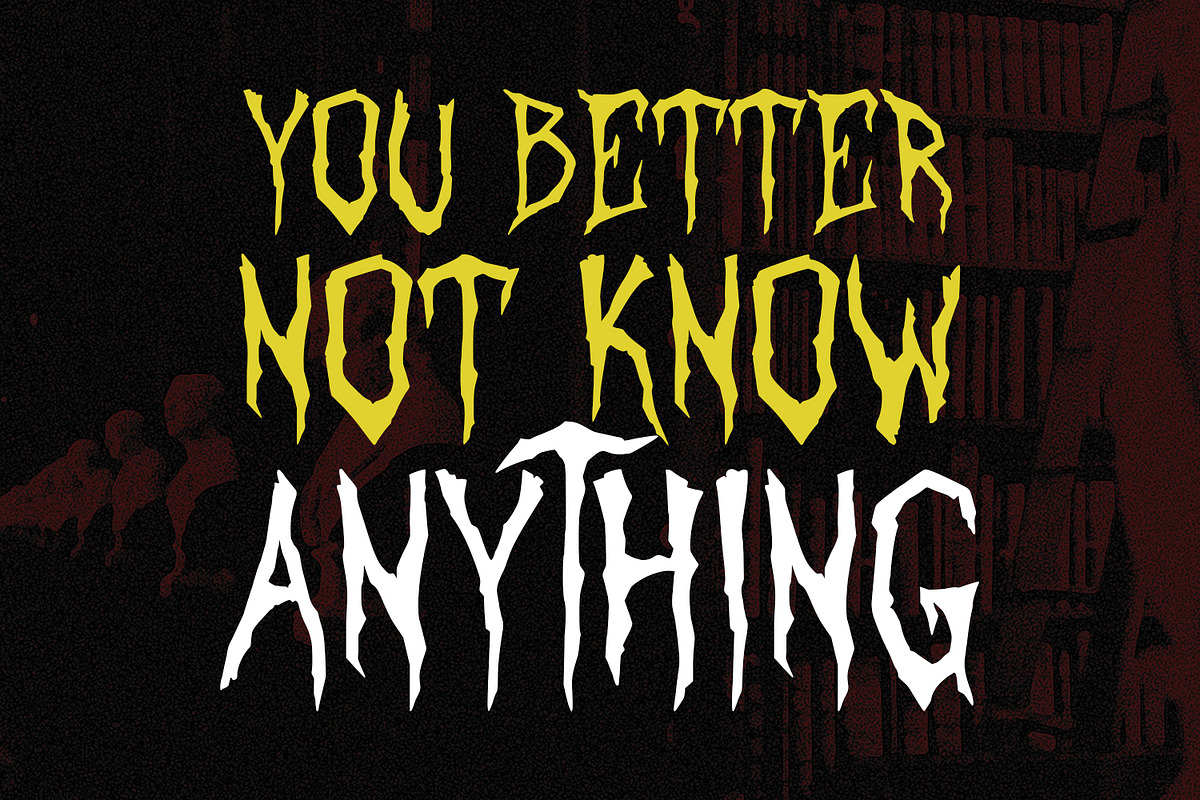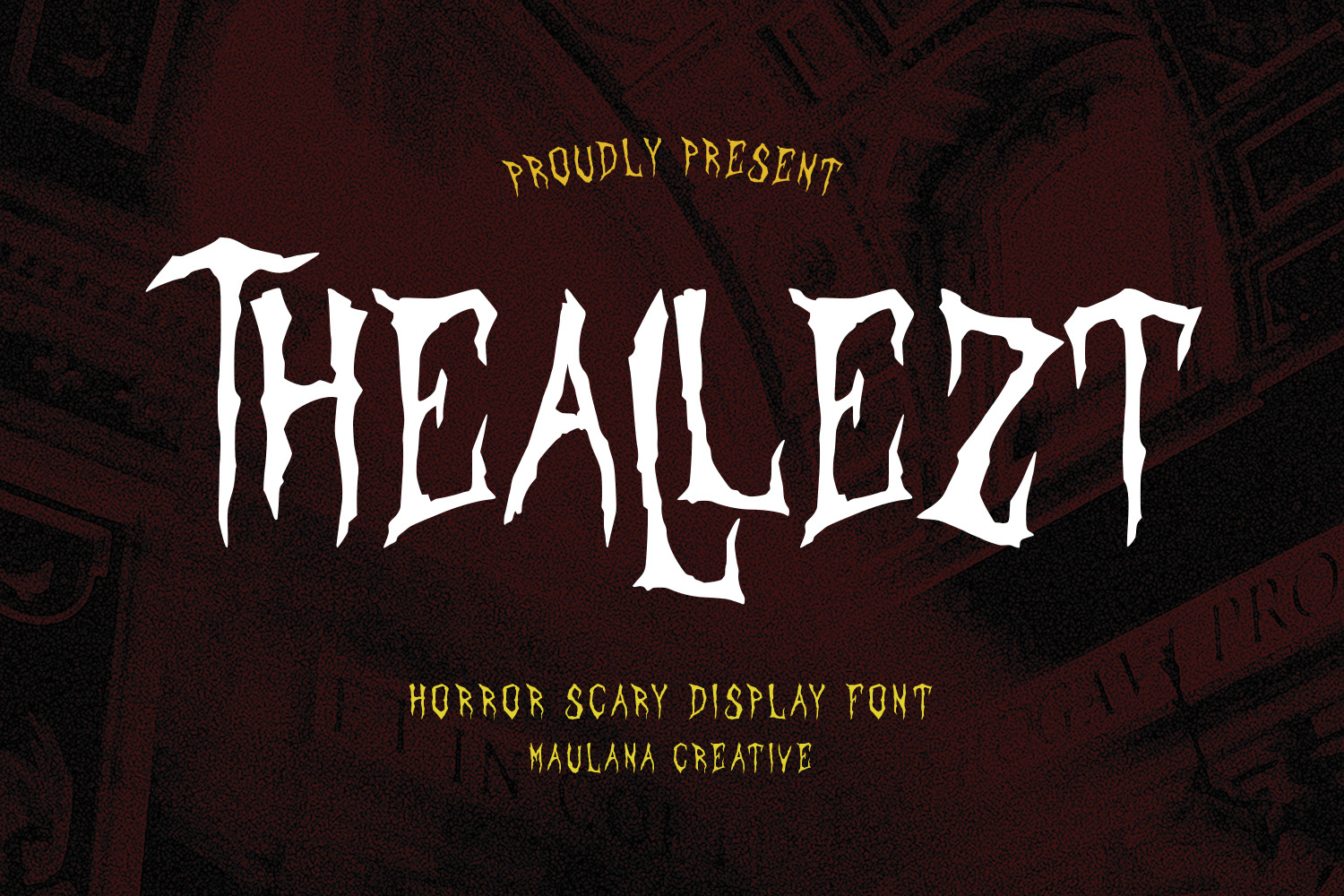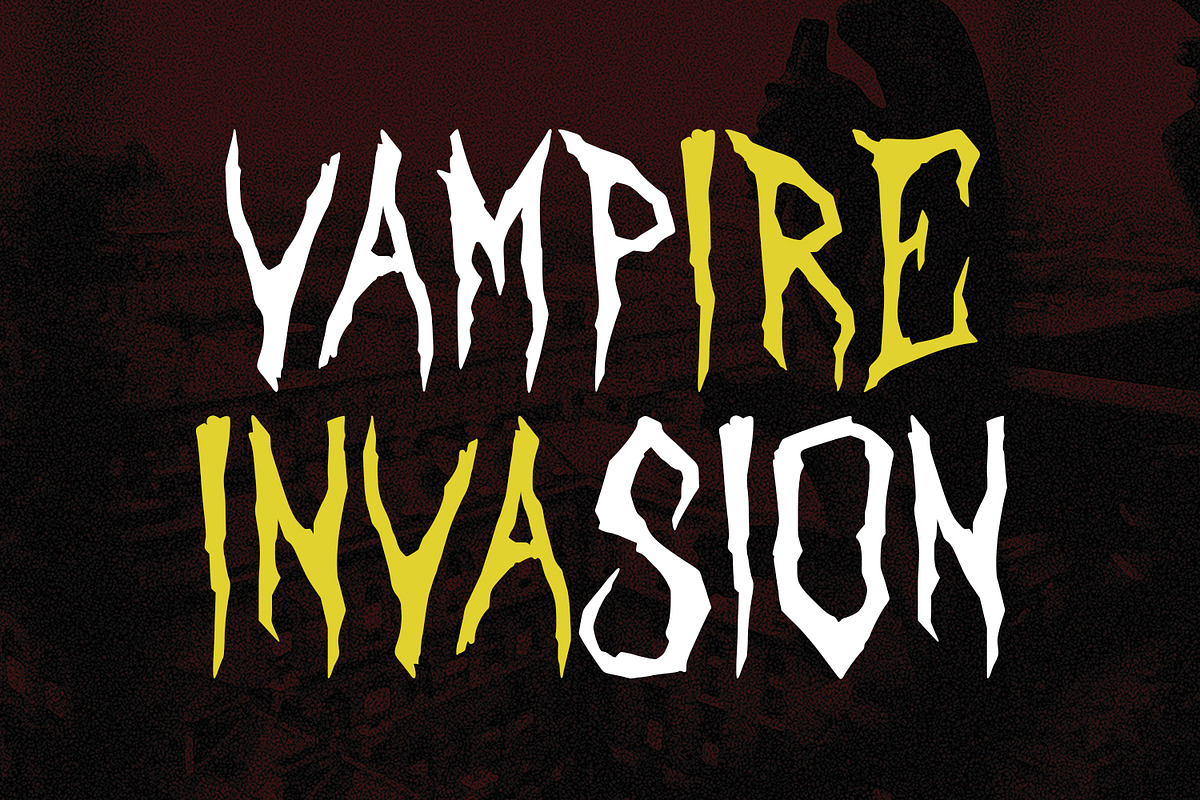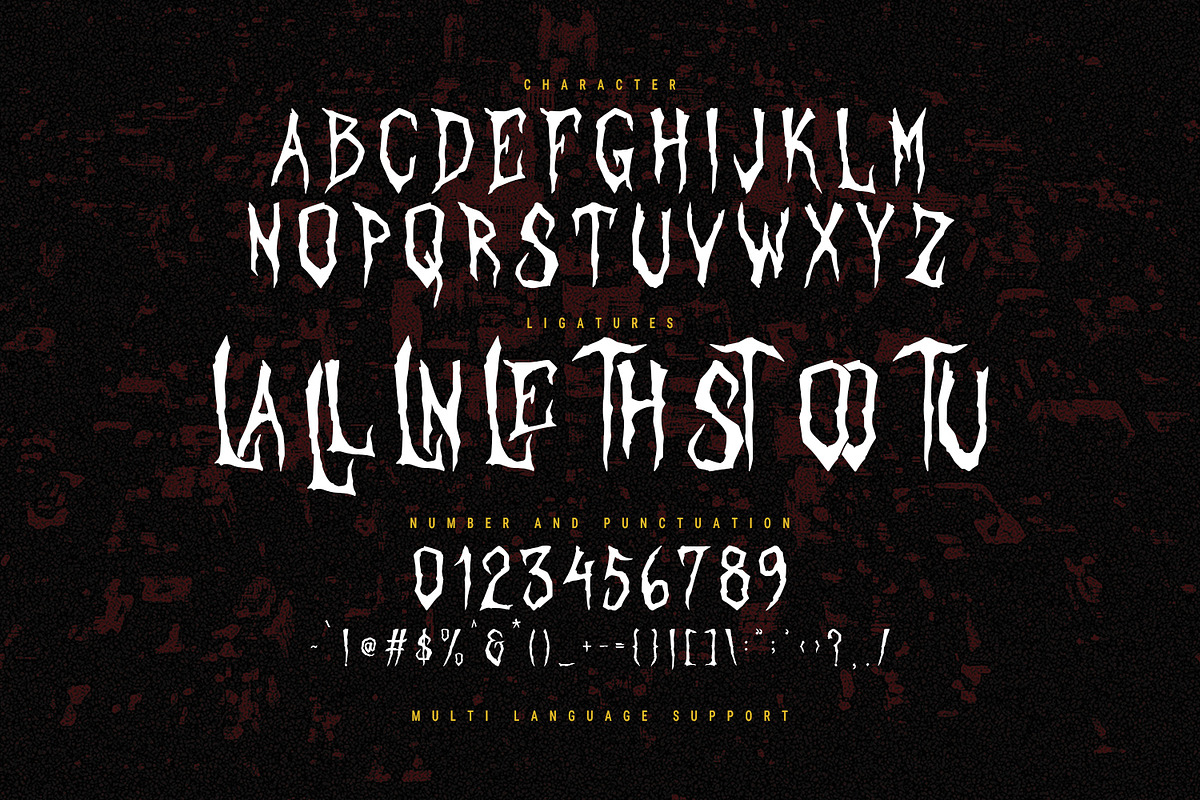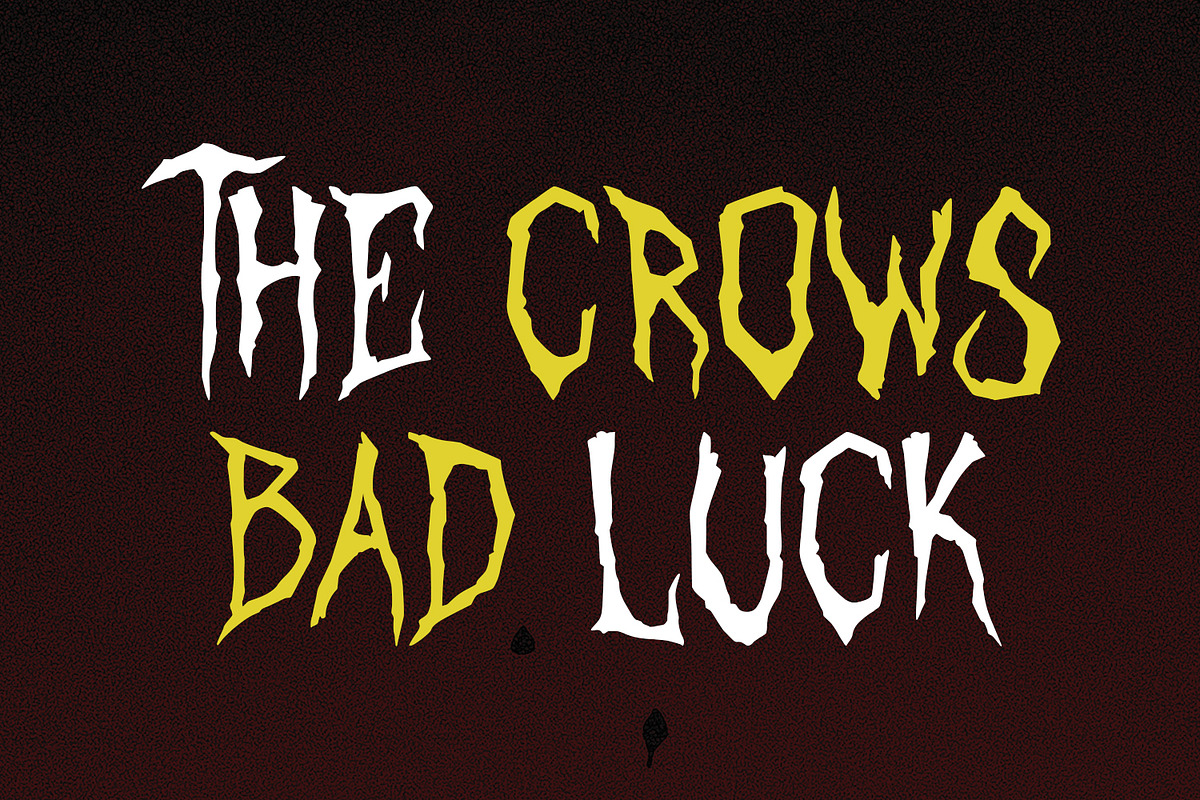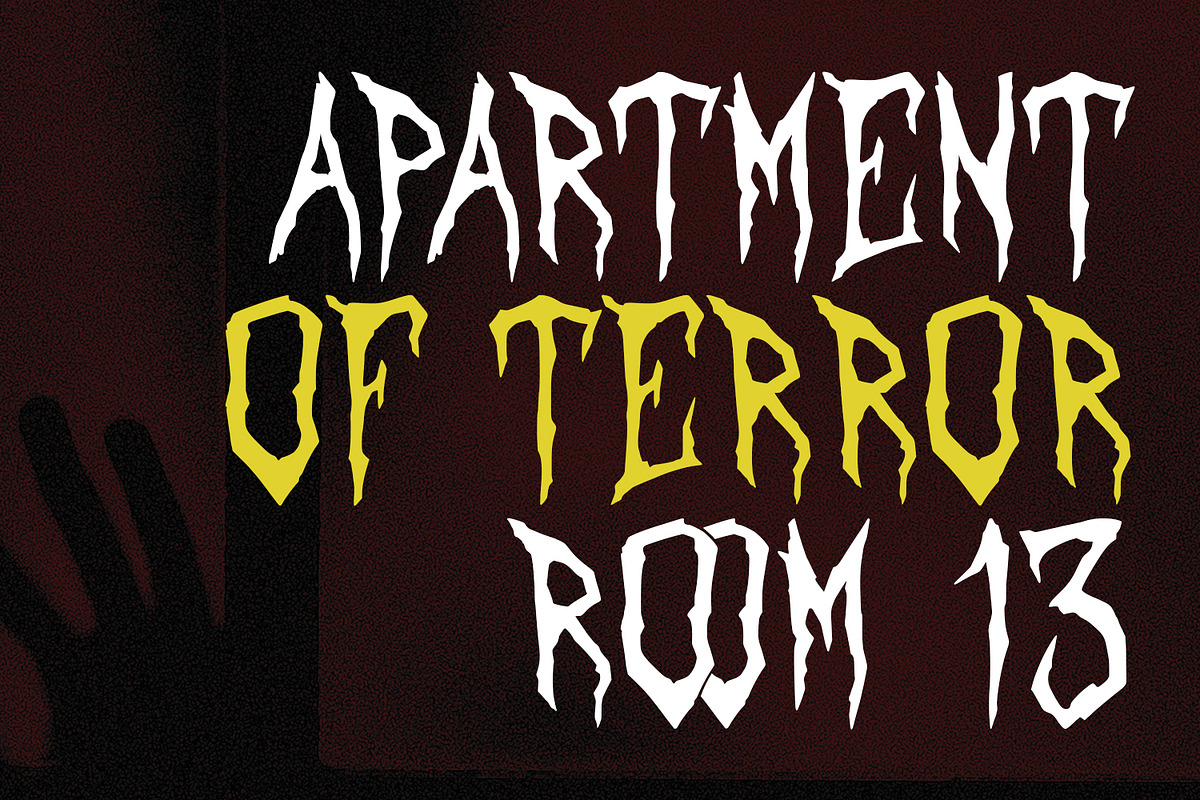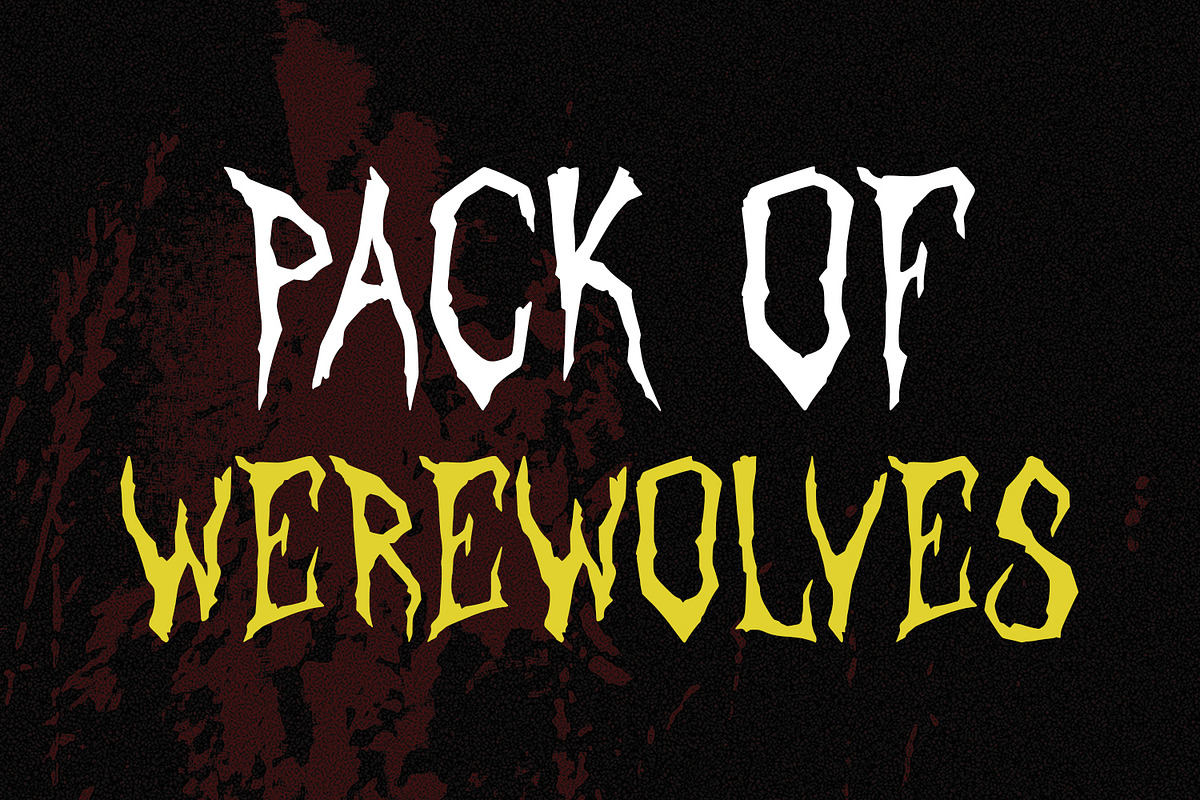
Theallezt Horror Scary Display Font
Give your designs an authentic brush handcrafted feel. "Theallezt Horror Scary Display Font" is perfectly suited to signature, stationery, logo, typography quotes, magazine or book cover, website header, flyer, clothing, branding, packaging design and more.